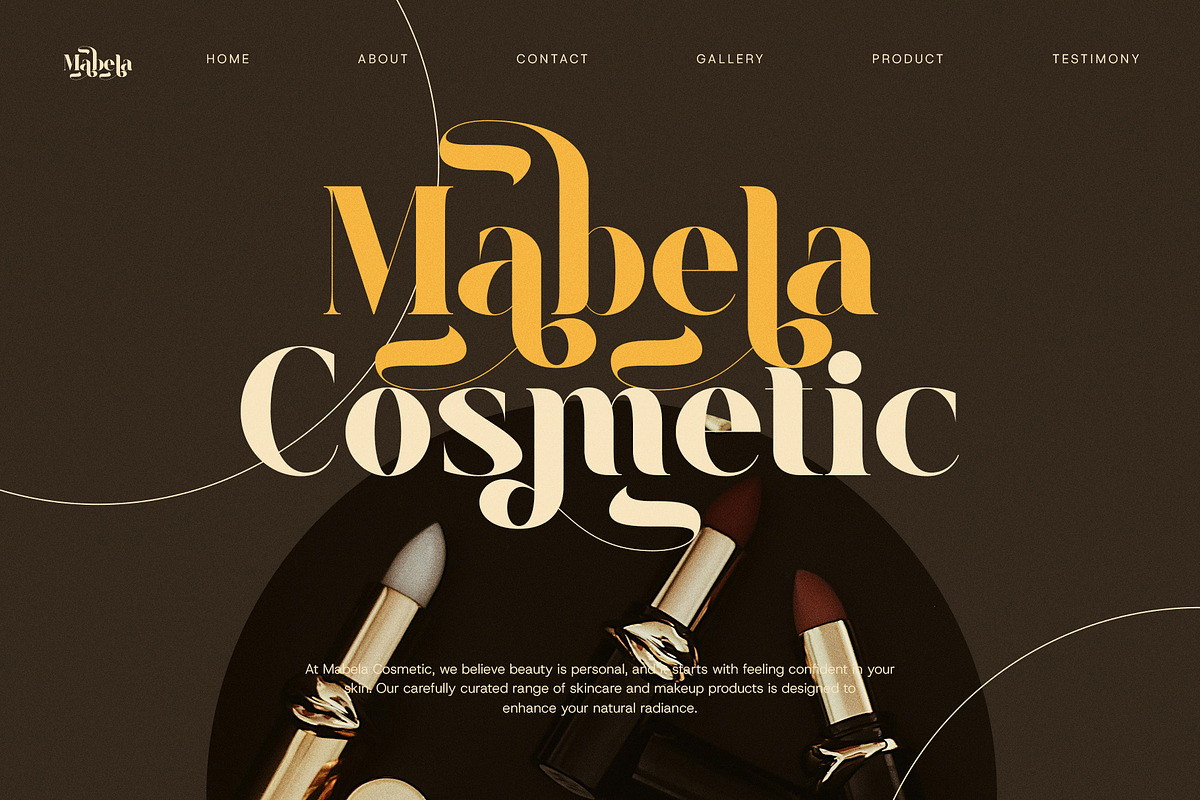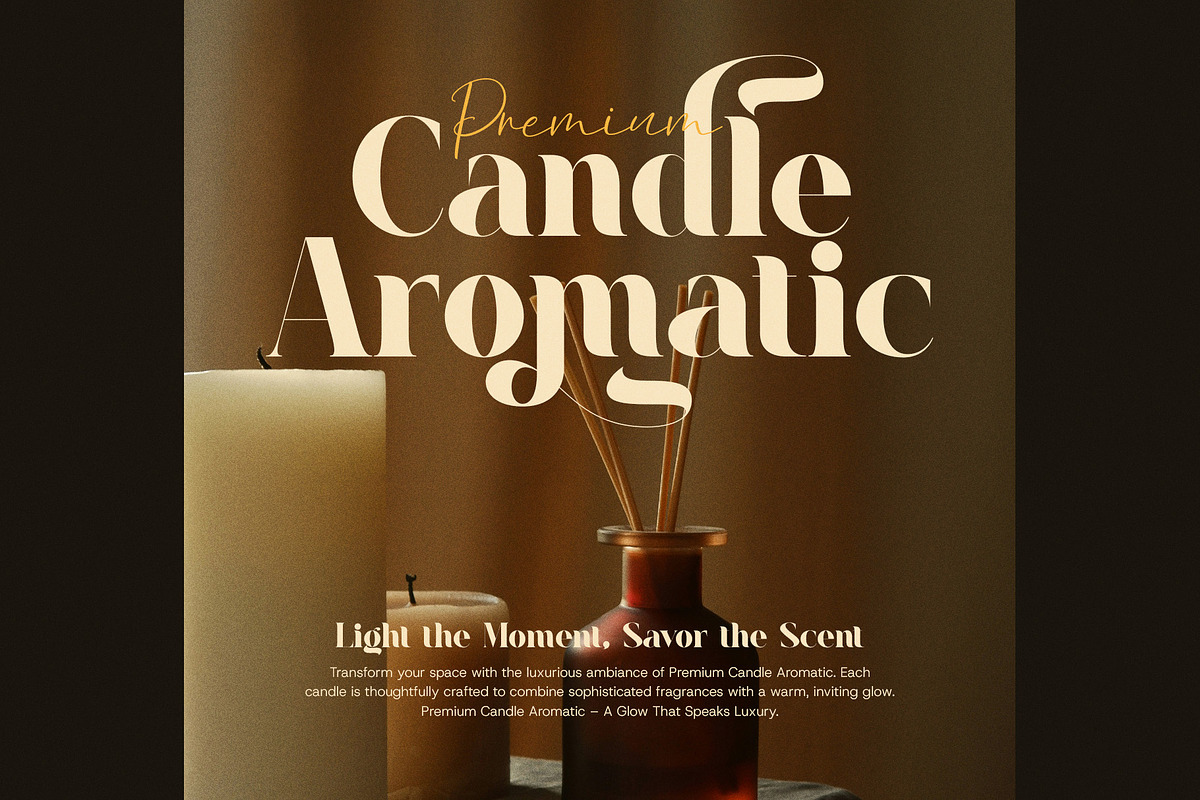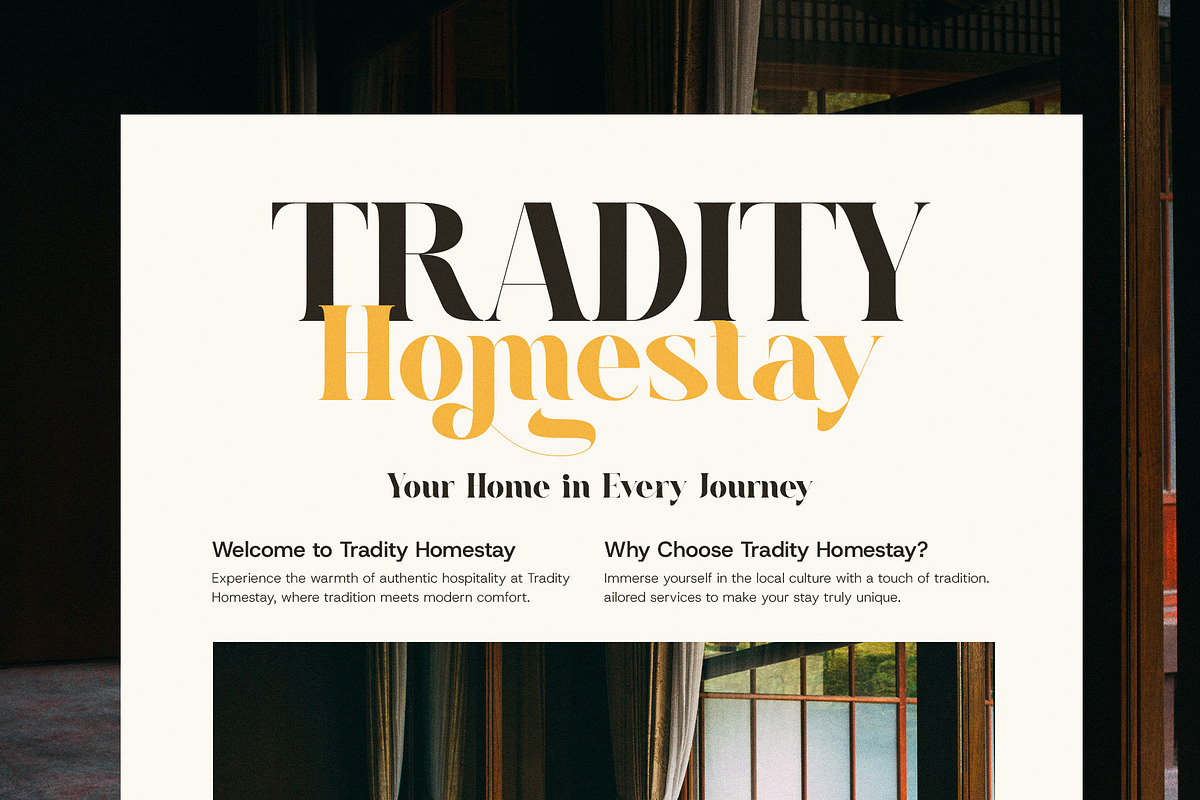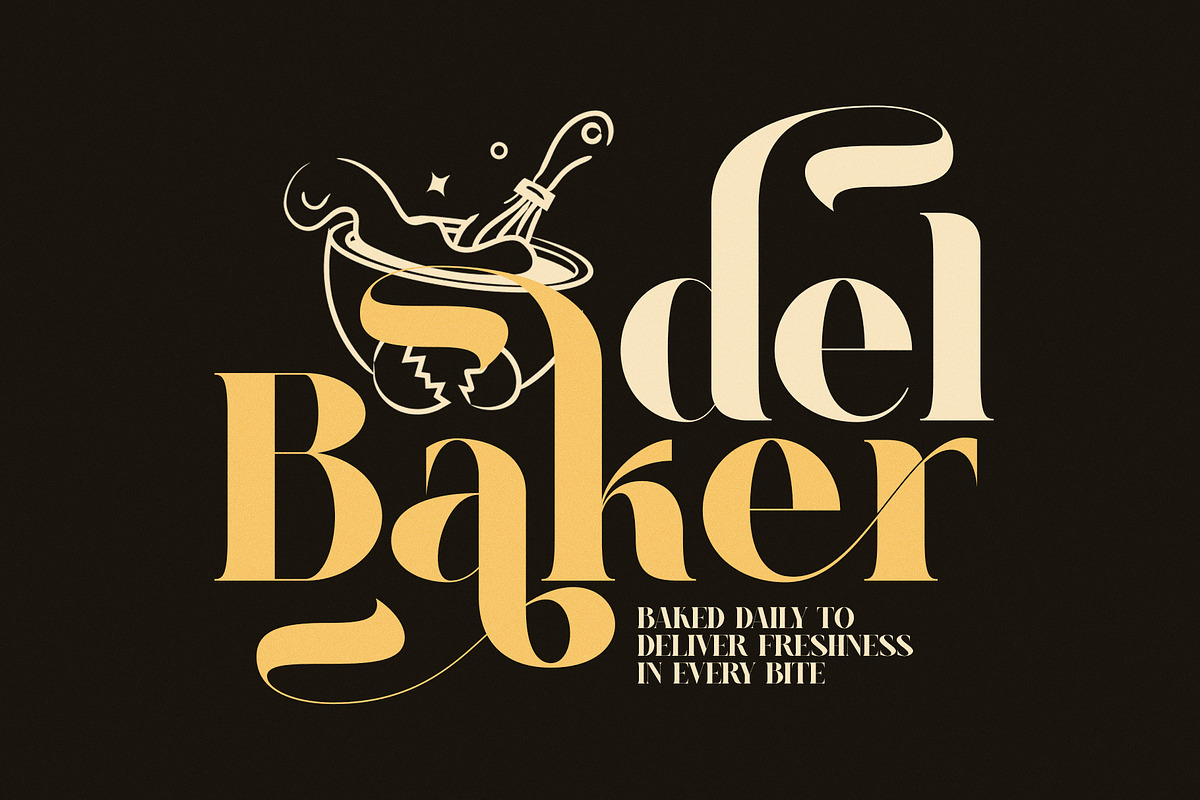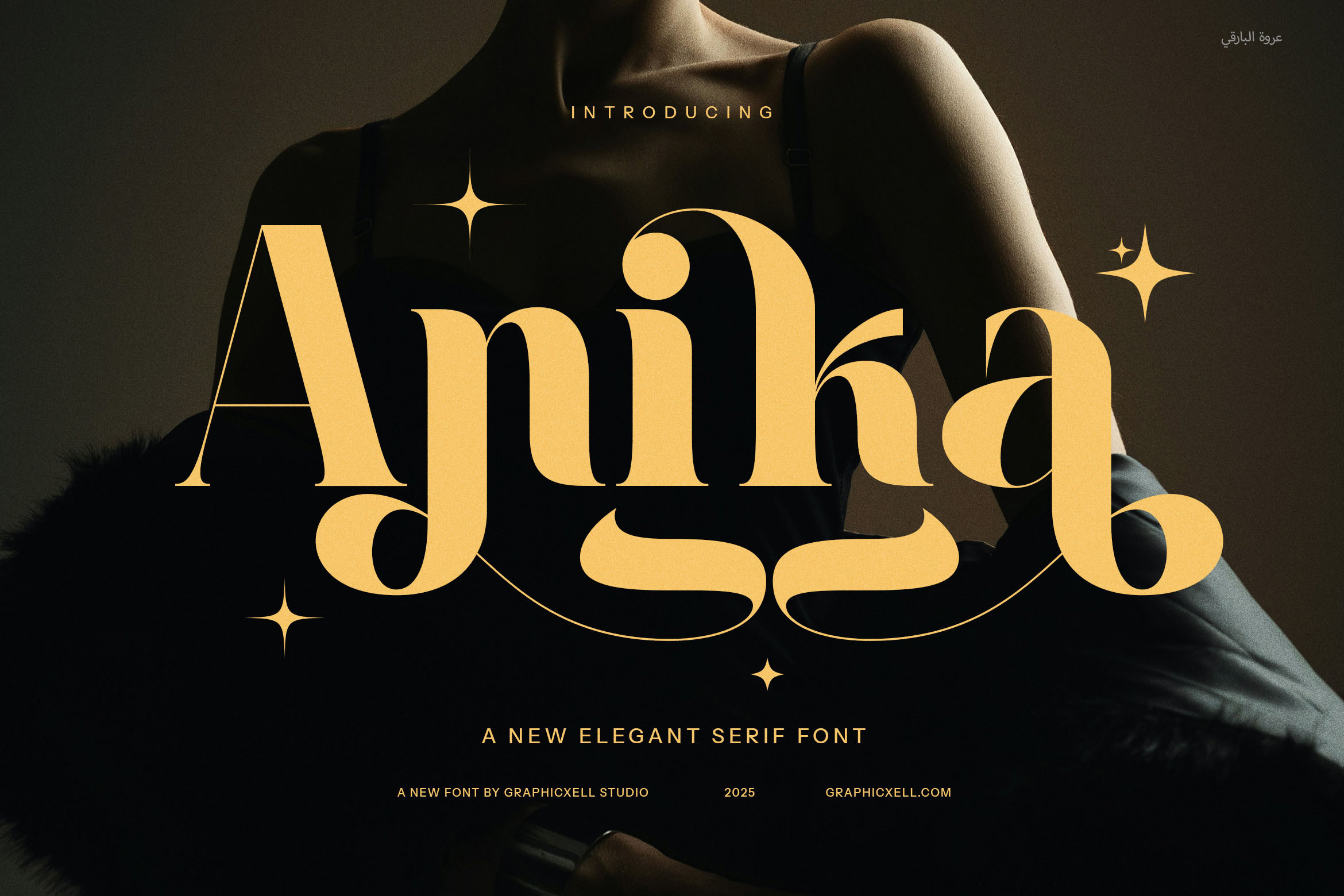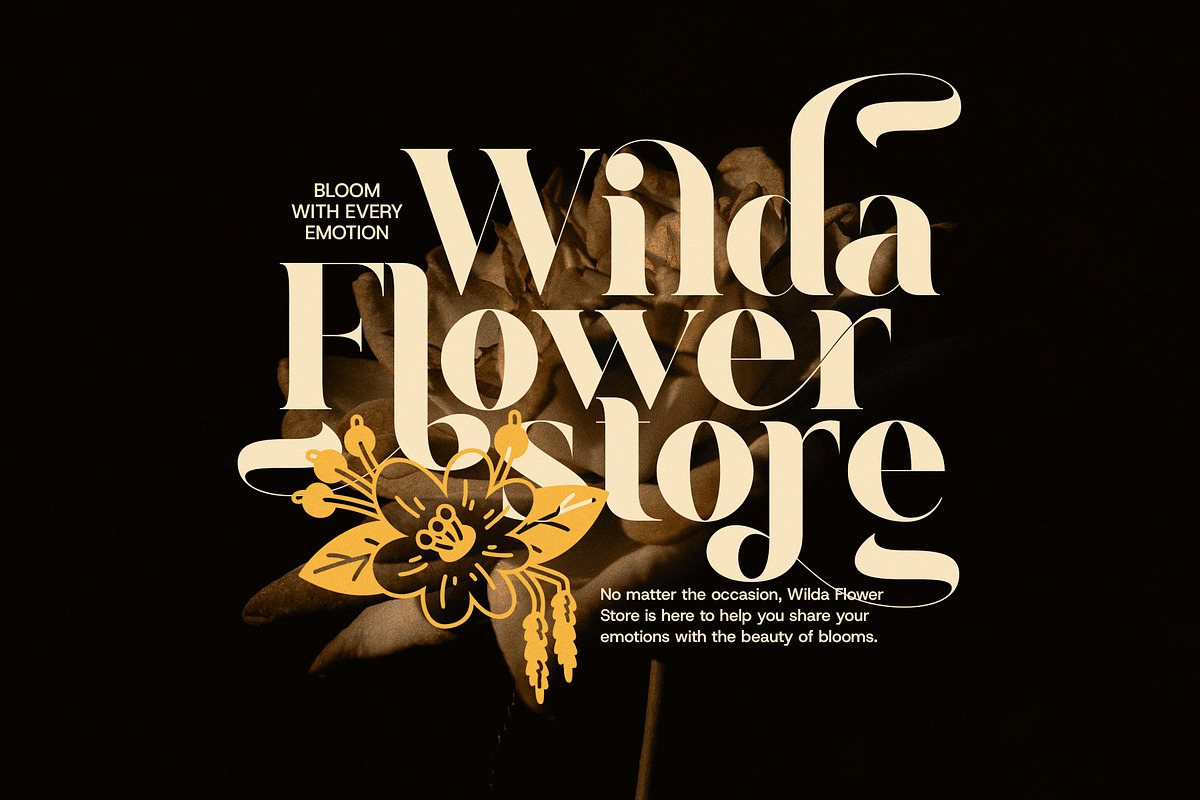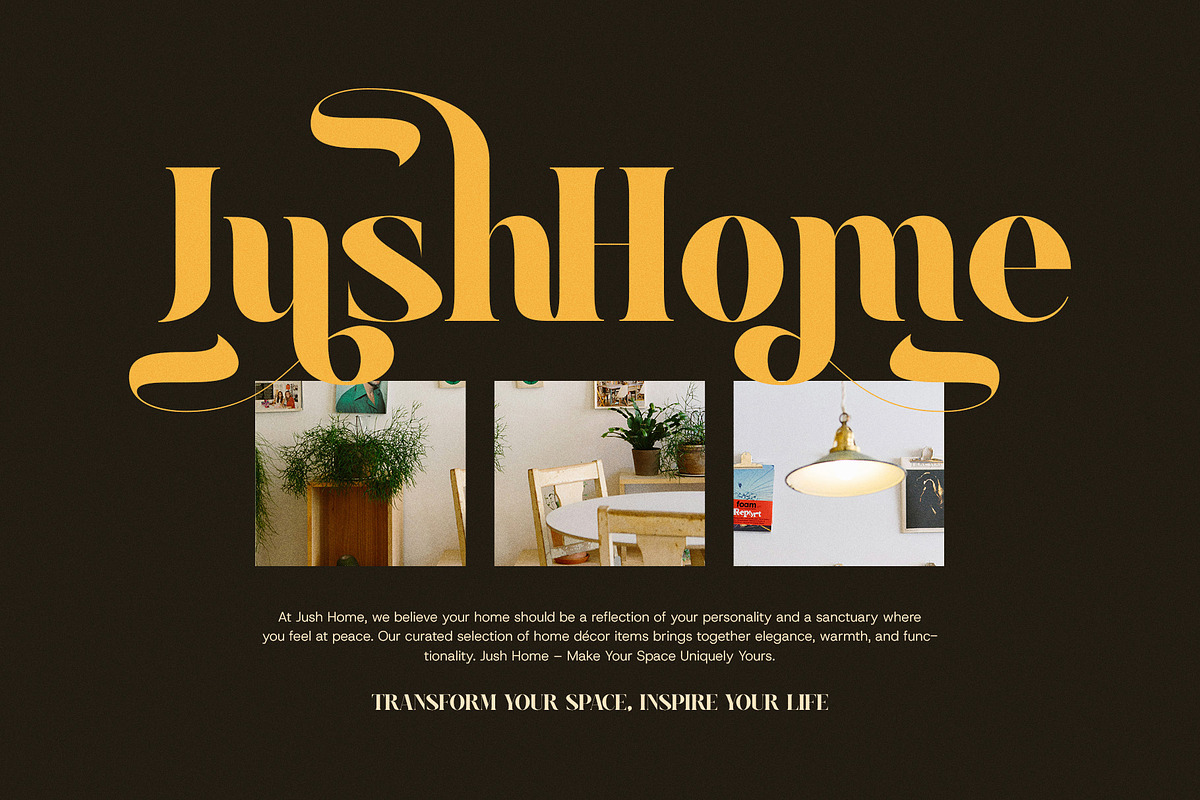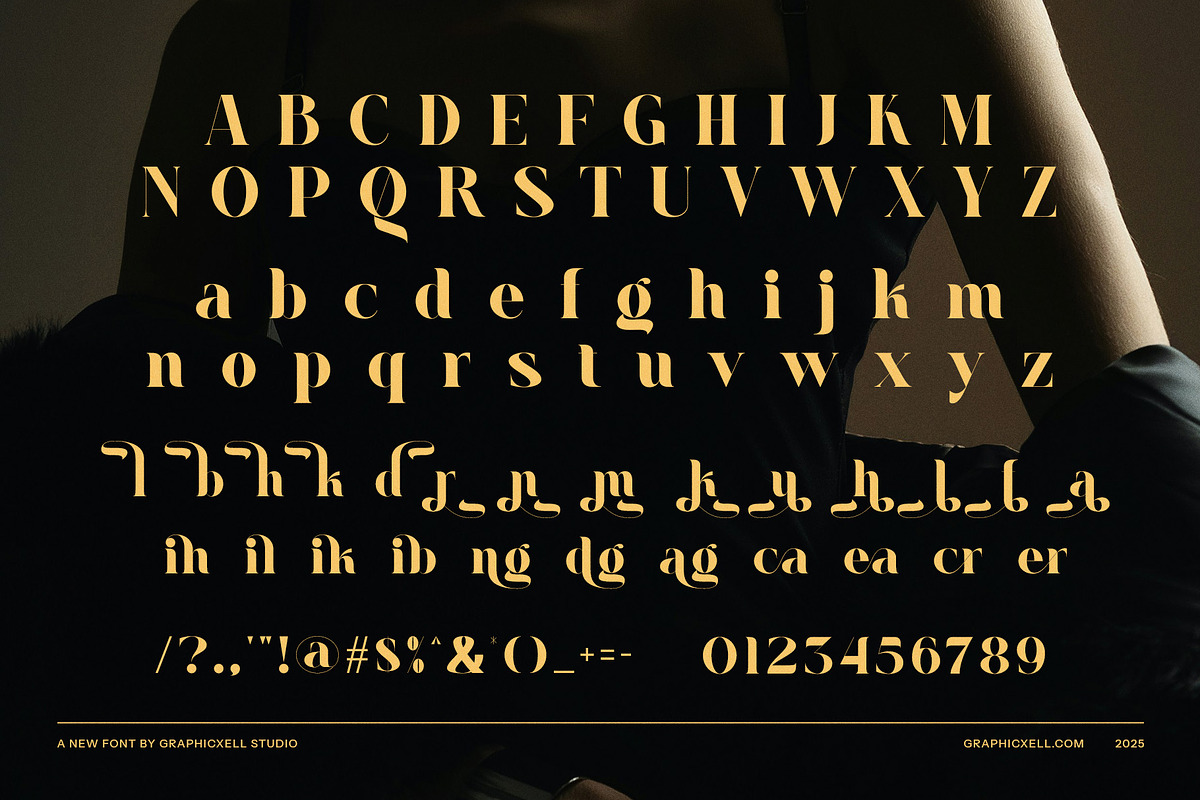
Anika Elegant Display Serif Font
Anika Elegant Display Serif Font is a refined typeface that blends modern aesthetics with timeless sophistication, perfect for making a statement in your design projects. Its graceful serifs, bold yet smooth lines, and carefully crafted details create a striking visual presence that commands attention. The font’s unique ligatures and alternate forms allow for endless customization, ensuring each design is truly one of a kind.
Anika is tailor-made for premium branding and identity work. Its elegant and versatile style is ideal for crafting memorable logos, luxury packaging, and sophisticated advertisements. Whether for high-end boutiques, beauty products, or upscale services, this font conveys a sense of exclusivity and professionalism that resonates with discerning audiences.
The font also shines in editorial applications such as magazines, websites, and layouts. Its balance of elegance and readability makes it suitable for impactful headlines, stylish subheadings, and polished body text. Anika’s adaptability ensures it performs beautifully across both print and digital mediums, adding a modern yet timeless touch to any project.
From boutique branding to gourmet food labels and beyond, Anika Elegant Display Serif Font enhances every design it graces. Its combination of bold character and delicate details makes it the perfect choice for creating captivating visuals that stand out.
Elevate your creative projects with Anika, a font that embodies elegance, versatility, and artistry. Let its timeless design and unique features transform your typography into a stunning showcase of sophistication.